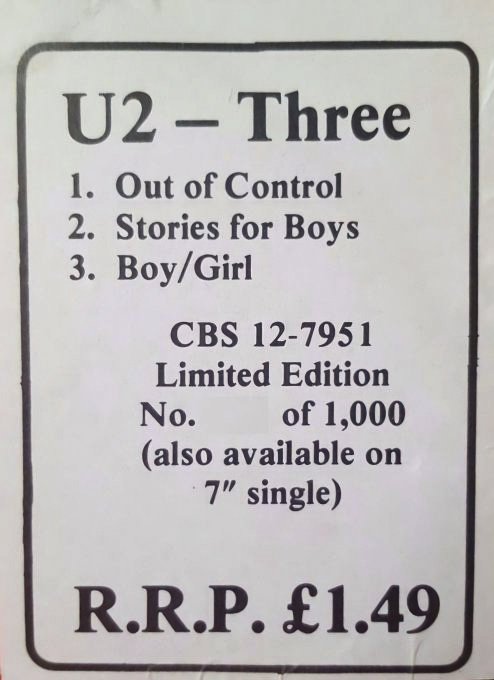
Times Bold but the printing is rough/blobby.
Yes some of it is times.
The numbers are not!
I tried the abode camera raw enhance on this and it didn’t really work. I put it in a thread somewhere.
Now I just want to recreate it and I can’t find what the font the numerals are in.
I thought it might Life Std Bold - but it’s not.